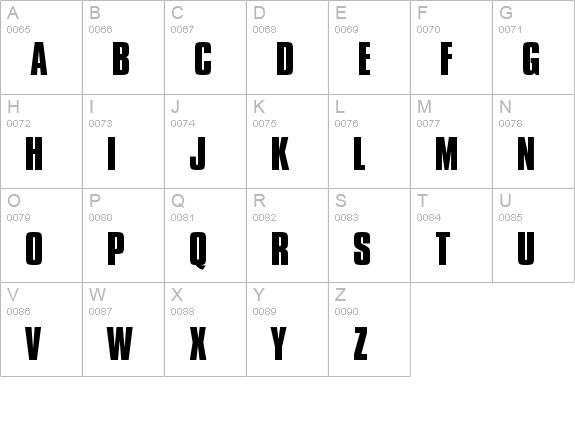
Compacta Bold BT is a strong, high-contrast variant in the Compacta typeface family \xE2\x80\x94 well suited to headlines, attention-grabbing titles, and strong calls-to-action.
Compacta Bold BT is a versatile and modern typeface that conveys strength and stability with its bold and condensed design. This font is perfect for headlines, titles, and branding projects that require a bold and impactful look. Its clean lines and geometric shapes give it a contemporary aesthetic that can make any design stand out. What's even better is that Compacta Bold BT is available for free download at FontsMarket.com. This means you can easily access this high-quality font for your design projects without any cost. Whether you're a professional designer or a hobbyist looking to elevate your creations, Compacta Bold BT is a fantastic choice that won't break the bank. Download it today and give your designs a bold and modern touch that will leave a lasting impression.